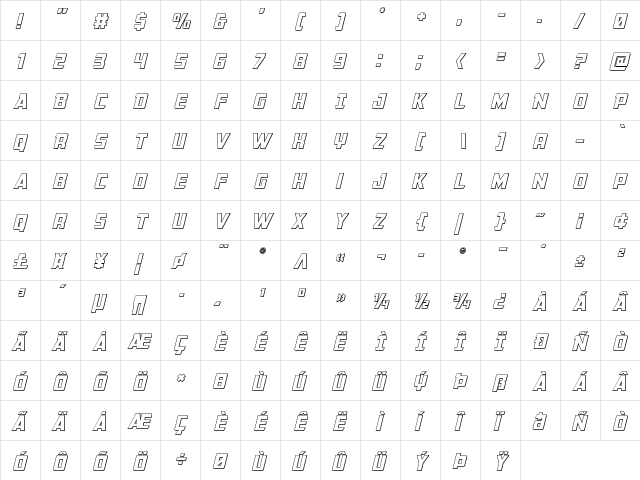
Buchanan Outline Italic Outline Italic
Design Context for Buchanan Outline Italic Typeface
Buchanan Outline Italic is built around its visual character rather than neutral utility — its distinctive forms are designed to make an impression at display sizes. Its italic angle brings a sense of urgency and motion to the letterforms.
Font Pairing: Pair with a clean neutral sans-serif for body copy to let Buchanan Outline Italic's character lead without overwhelming the composition.
Pro Tip: Treat Buchanan Outline Italic as the centrepiece of your typographic hierarchy. One strong heading set in a decorative face can carry an entire layout.